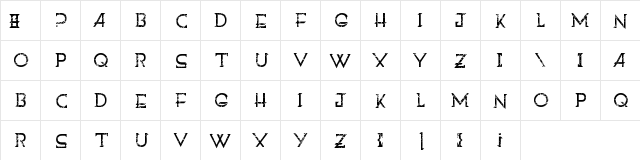
Complete Paralyzed sky and moon Grunge glyph index. Displaying only characters natively supported by Paralyzed sky and moon Grunge font.
Paralyzed sky and moon embraces imperfection - its rough, textured character adds raw authenticity to designs that want to feel lived-in and unconventional.
Pro Tip: Use Paralyzed sky and moon at larger sizes where the texture and irregularity of each letterform can be clearly seen - it loses its character at small sizes.